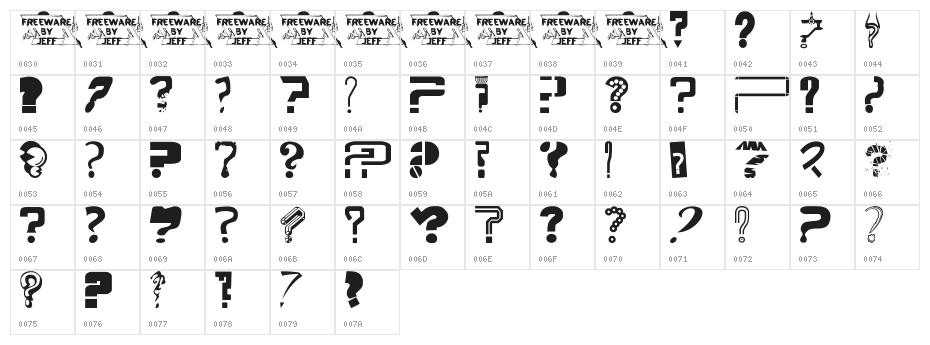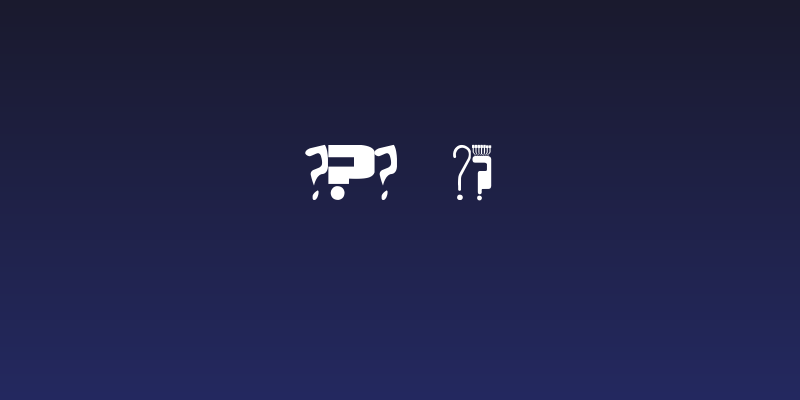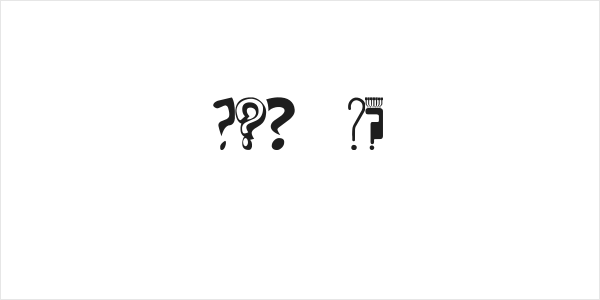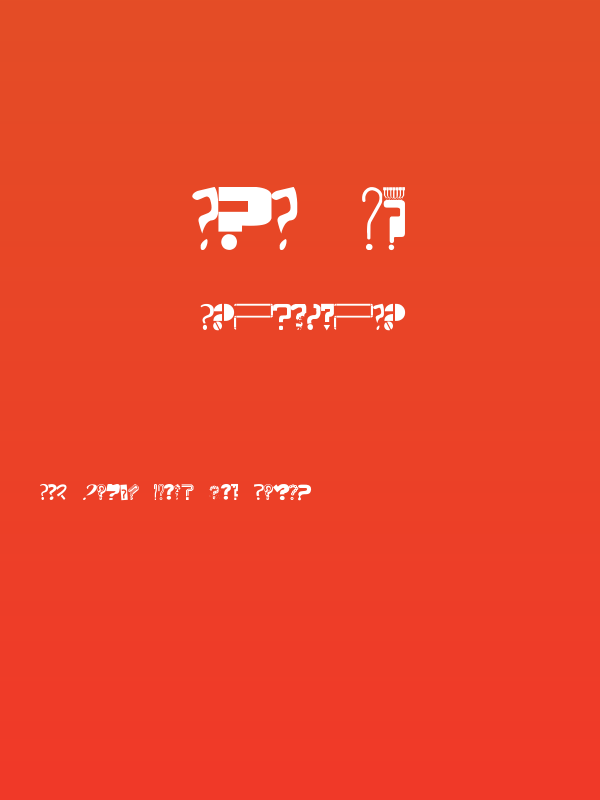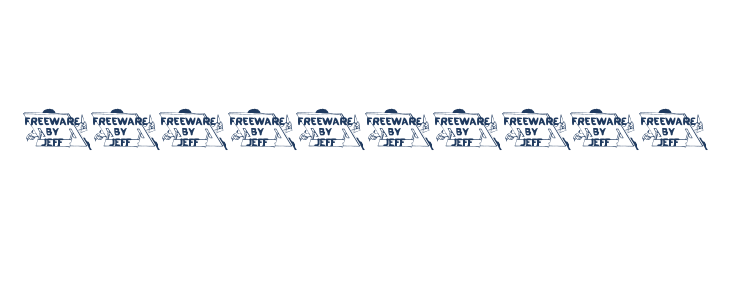
Huh? JL Font
Huh? JL Description
This font is a highly creative and abstract design, featuring a series of question marks that are uniquely styled with various artistic elements. Each character is distinct, incorporating different textures, shapes, and motifs that make it stand out. The font is not meant for traditional text but rather for decorative purposes, where each character serves as a piece of art. The design is playful and imaginative, making it suitable for projects that require a touch of whimsy and creativity. The font's unique style can add a dynamic and intriguing element to any visual composition.
| Use Case | Logos, Posters, Artistic Designs |
| Proposed Projects | Ideal for artistic projects, posters, album covers, and any design requiring a whimsical touch. |